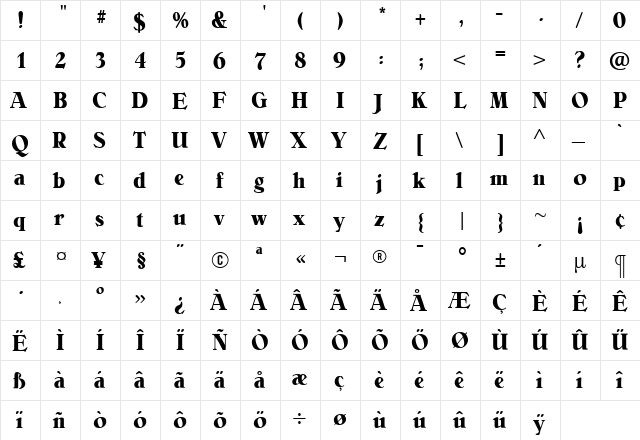
BelliniBoldCondensed Regular Font Preview
| Foundry | Copr. Red Rooster Typefounders |
Design Context for BelliniBoldCondensed Typeface
BelliniBoldCondensed takes a measured approach to typography — its balanced proportions and neutral character make it a reliable workhorse for both digital and print work. Its bold stroke weight gives it real presence on the page. The condensed width makes it efficient for tight spaces without sacrificing legibility.